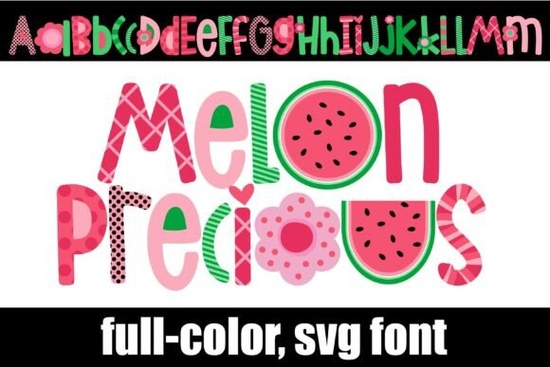
Finding the perfect font for a fun, colorful project can sometimes feel limiting. You want something that stands out but still looks polished. If you love bold, hand-drawn styles with lots of personality, the Melon Precious font is exactly what you need. It fits perfectly into the growing colorful fonts trend that designers and crafters are loving right now.
What exactly is Melon Precious Font?
Unlike standard fonts that just show basic letter shapes, Melon Precious takes things a step further. It's a whimsical patterned SVG font. This means every single character comes with its own built-in illustration. You get hand-drawn polka dots, delicate stripes, tiny floral charms, and sweet heart accents on each letter. It has a "scrapbook-chic" feel that is hard to replicate with regular typography. If you are a fan of display fonts that do all the decorating for you, this is a strong addition to your toolkit.
Who is this font perfect for?
I often get asked if this font is just for digital artists. The truth is, it works for a wide range of creative people. Here is who will get the most out of it:
- Print-on-Demand sellers: T-shirts, tote bags, and mugs get an instant upgrade. The patterns make your designs look like custom illustrations without the high cost.
- Teachers and educators: Creating teacher resources and classroom decor becomes more fun. Bulletin boards, name tags, and worksheets pop with personality using this SVG font.
- Crafters and hobbyists: If you love digital scrapbooking, journaling, or making handmade cards, this font saves you hours of manually adding doodles.
- Small business owners: Brands with a cute or "preppy" style can use it for social media overlays, packaging, and product labels to create a consistent, charming look.
How can you use Melon Precious in real projects?
The beauty of this display font is its versatility. You aren't limited to just one style of project. Let's look at some specific ways you can put it to work today:
- Children's boutique stationery: Birthday invitations, thank-you notes, and birth announcements become instant keepsakes. The hand-drawn elements make them feel personal and warm.
- Social media content: In a scrolling feed, text needs to grab attention. Using this font for Instagram stories or TikTok covers helps you nail that preppy-core aesthetic.
- DIY craft projects: Print the letters to use as stencils, or cut them out with a cutting machine (like Cricut or Silhouette) for physical scrapbooking layouts.
- Packaging design: Small product boxes, gift tags, and wrapping paper can get a custom, handmade look without needing to hire an illustrator.
What makes Melon Precious stand out among other colorful fonts?
There are plenty of colorful fonts out there, but Melon Precious offers a specific texture. It leans into the maximalist-cute trend that is popular right now. It feels energetic and joyful. If you are browsing the colorful fonts library on Creative Fabrica, you will notice it has a unique hand-drawn soul that standard vector fonts don't have. For a totally different handcrafted look, you might also enjoy the stitched, textured vibe of the Spring Cross Stitch Font. Both are excellent examples of how creative display typography can transform a simple layout into a work of art.
Quick tips for using patterned SVG fonts
To get the best results with Melon Precious, keep these simple ideas in mind:
- Keep backgrounds simple. Because the letters themselves are busy with dots and stripes, a solid white, soft pastel, or simple gradient background helps the text stand out.
- Pair it with a clean body font. Use Melon Precious for your main heading or short phrase. For longer reading text, choose a simple, easy-to-read sans-serif font to balance the layout.
- Watch your size. The tiny details like hearts and polka dots need to be visible. Don't use this font at very small sizes or the patterns might become muddled.
- Experiment with color: Since it is an SVG font, you can often change the color overlay to match your branding perfectly.
Whether you are a seasoned designer or a hobbyist just starting out, adding a font like this to your collection makes creating beautiful, detailed work faster and much more fun.